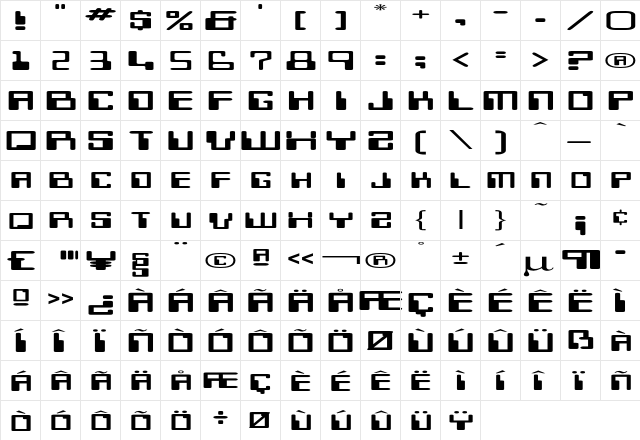
Micr Extended Font Preview
Micr Extended
Design Context for Micr Typeface
Micr takes a measured approach to typography — its balanced proportions and neutral character make it a reliable workhorse for both digital and print work.